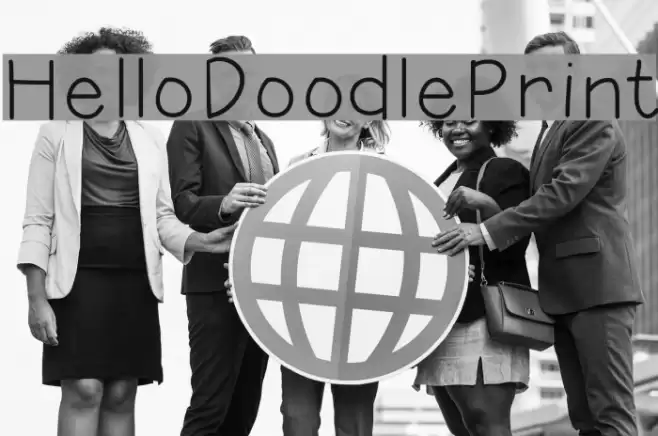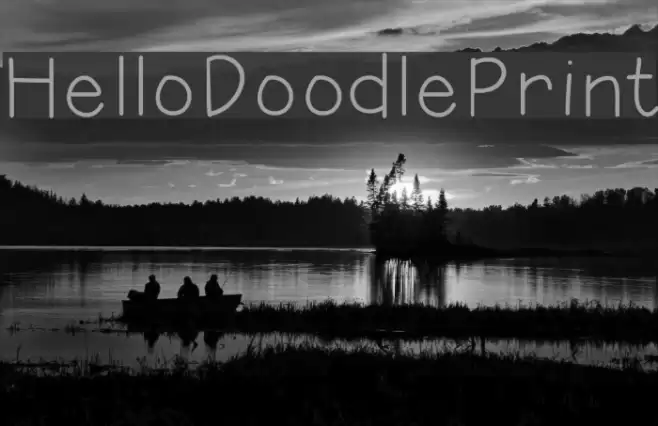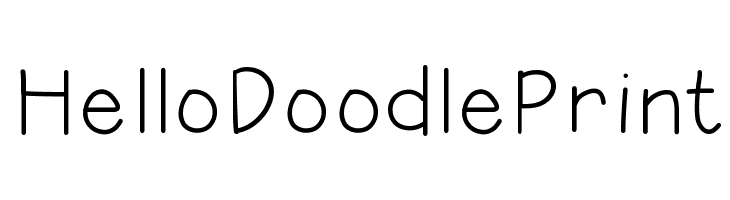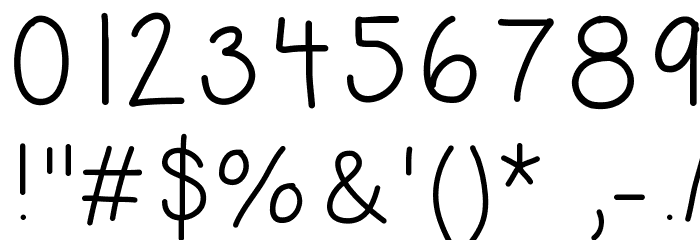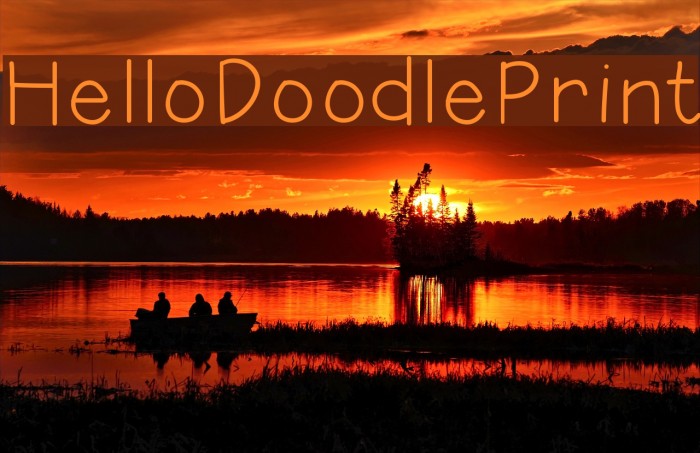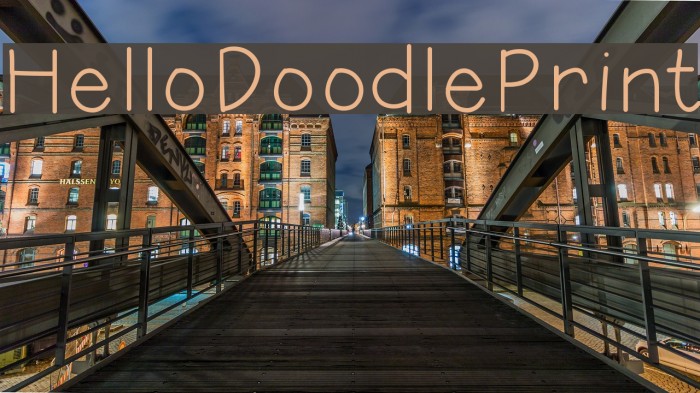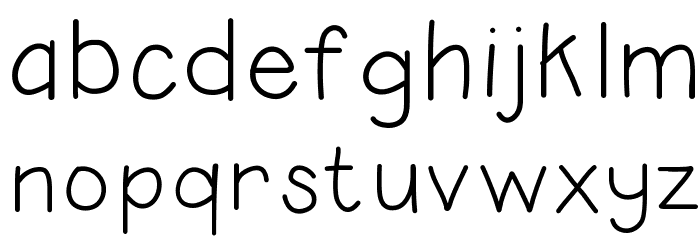
HelloDoodlePrint Font
HelloDoodlePrint Description
This playful and whimsical font features a handwritten style with a casual and friendly appearance. The characters are slightly irregular, adding a personal touch that resembles doodling or sketching. The strokes are consistent in thickness, providing a uniform look while maintaining a sense of spontaneity. The uppercase letters are tall and narrow, while the lowercase letters have a more rounded and open form. Numbers and special characters follow the same playful style, making this font versatile for various creative projects.
A playful, handwritten font with a casual and friendly style from Handwritten fonts.
- Proposed Projects: Ideal for children's books, greeting cards, playful branding, and casual invitations.
- Overall Style: Playful
- Use Case: Headlines, Logos, Informal Text